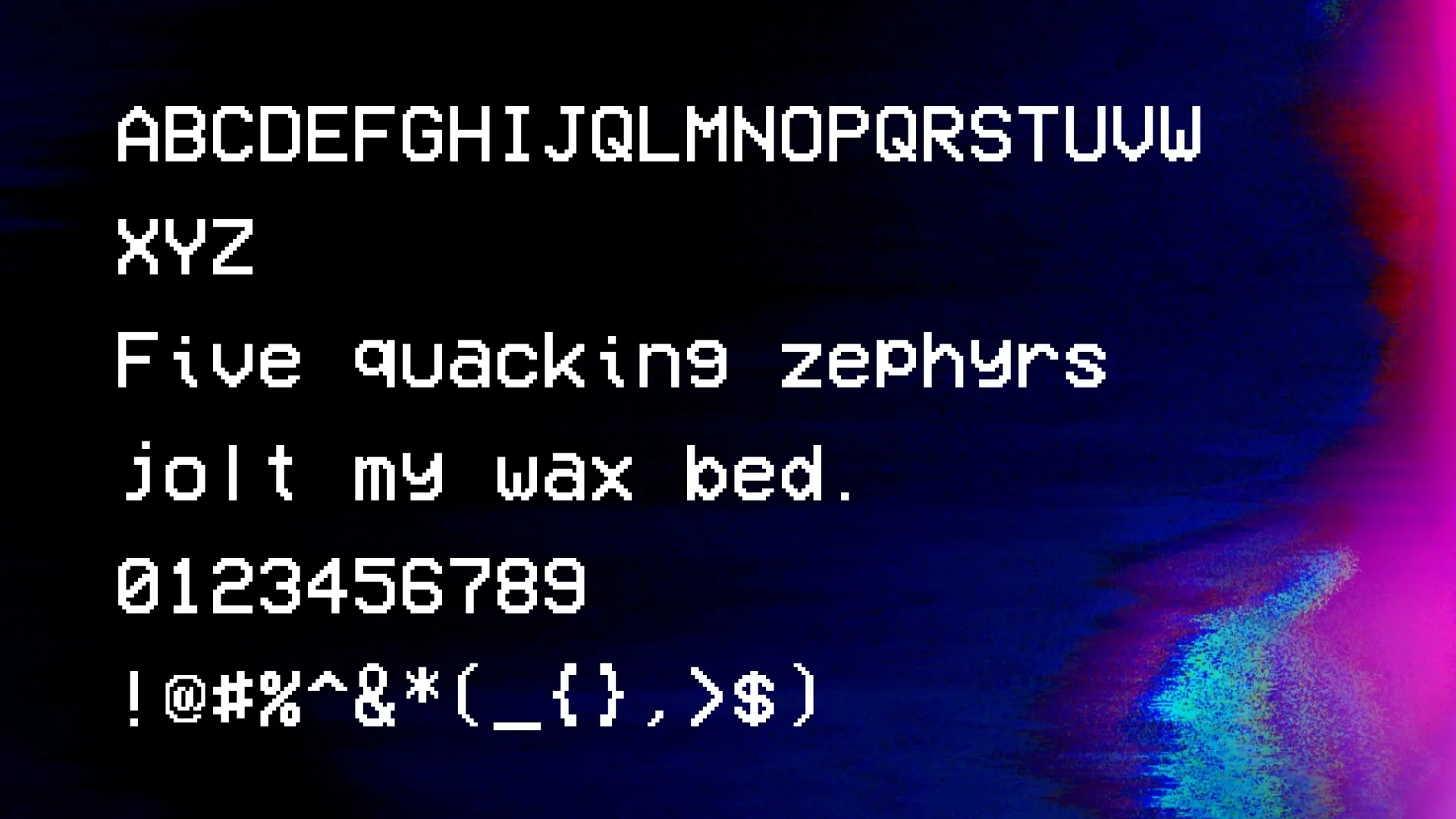
Vcr Osd Mono Font is a display typeface that has a fancy and unique texture appearance. This typeface can easily be utilized in creative display designs and projects. This font style has an immature texture style that is not suitable to create official documentation and certificates. It is an old texture style but yet it is new to many designers, they have used this typeface in various designs and projects. This font style is also used in Canva, a graphic design website, to create stunning designs.
This font style has also been used with CSS (Cascading Style Sheets) and Adobe Photoshop to create various designs. This font type is also used to create posters, banners, T-shirt designs, Pana flex, birthday cards, invitation cards, and shop names, among other things. This vivid texture style is also used for designing and manufacturing periodicals, signposting, and naming brands, among other things.
Creator of Vcr Osd Mono Font
This creative and unique typeface has been designed by a typographic designer named Riciery Leal. He has designed this font style to be utilized as a display interface in VCRs. He has also designed many of the famous fonts that are continuously utilized in many designs.
Unlike other font styles, this typeface has been designed with a single style, which makes it unique. This single style features includes uppercase alphabets, lowercase alphabets, glyphs, punctuation, digits, symbols, and special characters, as well as language support, are all included in this single design.
| Style | Decorative |
| Designer | Riciery Leal |
What type of font is Vcr Osd Mono font?
This typeface is a display typeface that has a creative and unique texture appearance.
Who designed Vcr Osd Mono Font?
This creative and unique typeface has been designed by a typographic designer named Riciery Leal.
Can I use Vcr Osd Mono Font for my logo?
It has a unique and amazing texture style that makes the designed eye-catchy. So, yes you can utilize this typeface for your logo.
Where can we use Vcr Osd Mono Font?
We can use this font in every creative design and project. The best use of this font is to utilize it on the device’s interface.